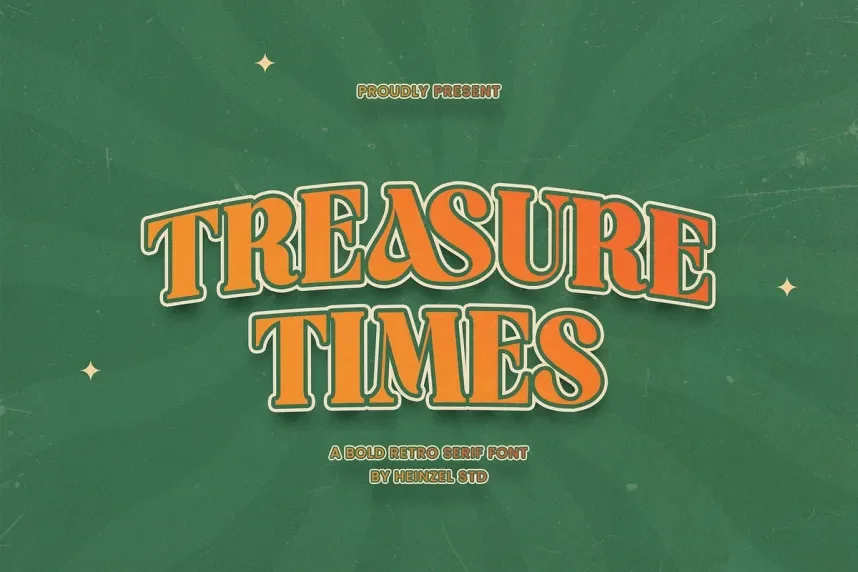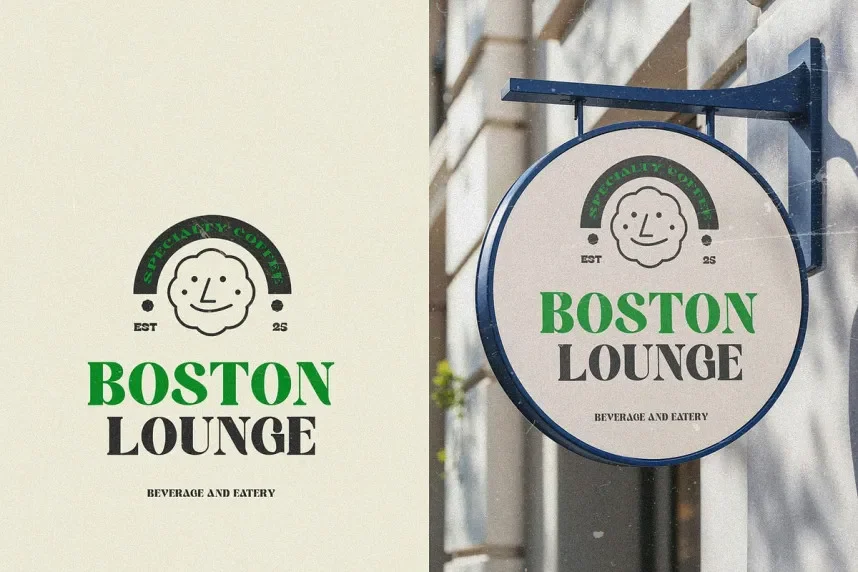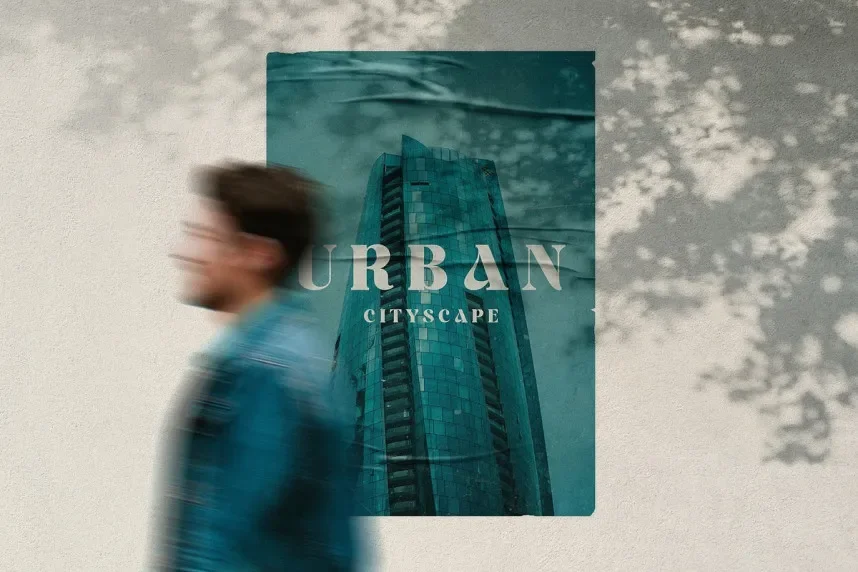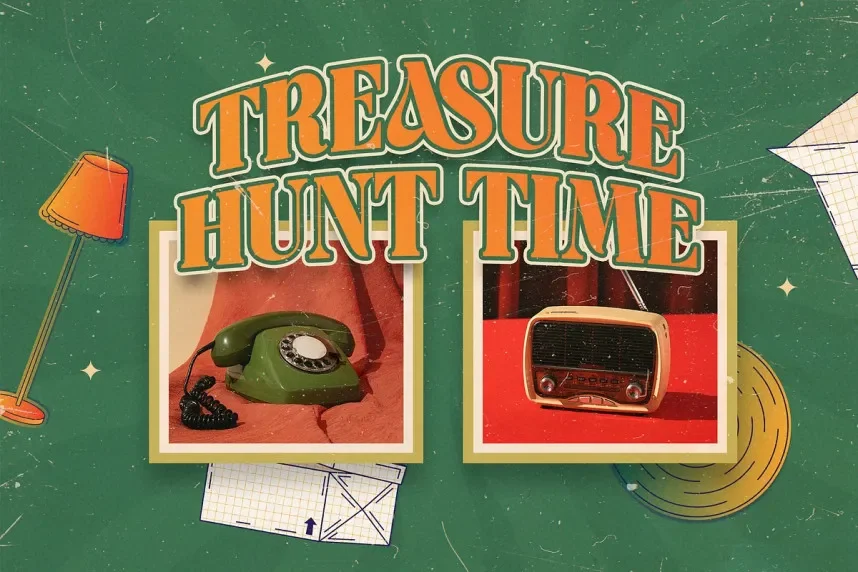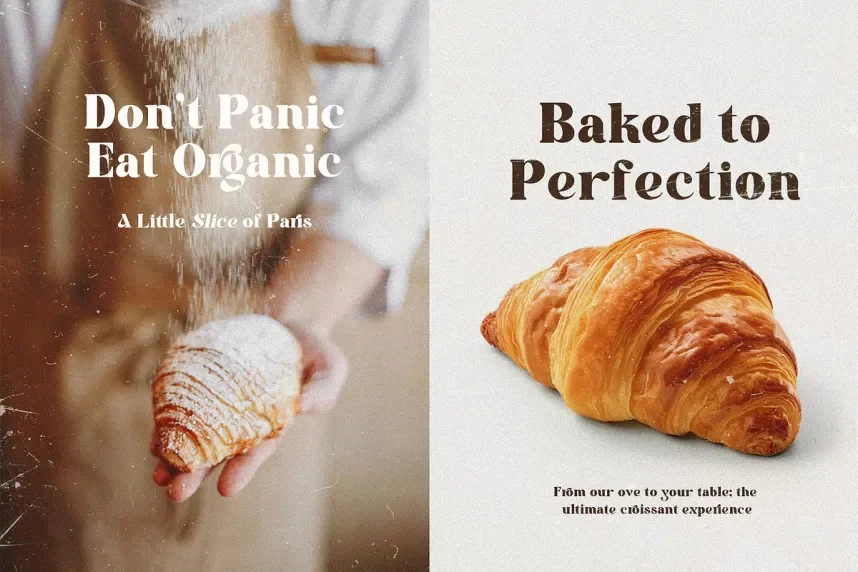
Treasure Times Font is an elegant serif typeface with classic letterforms and refined details. Its sophisticated design makes it perfect for high-end branding, invitations, and editorial design projects that need a touch of tradition and elegance.